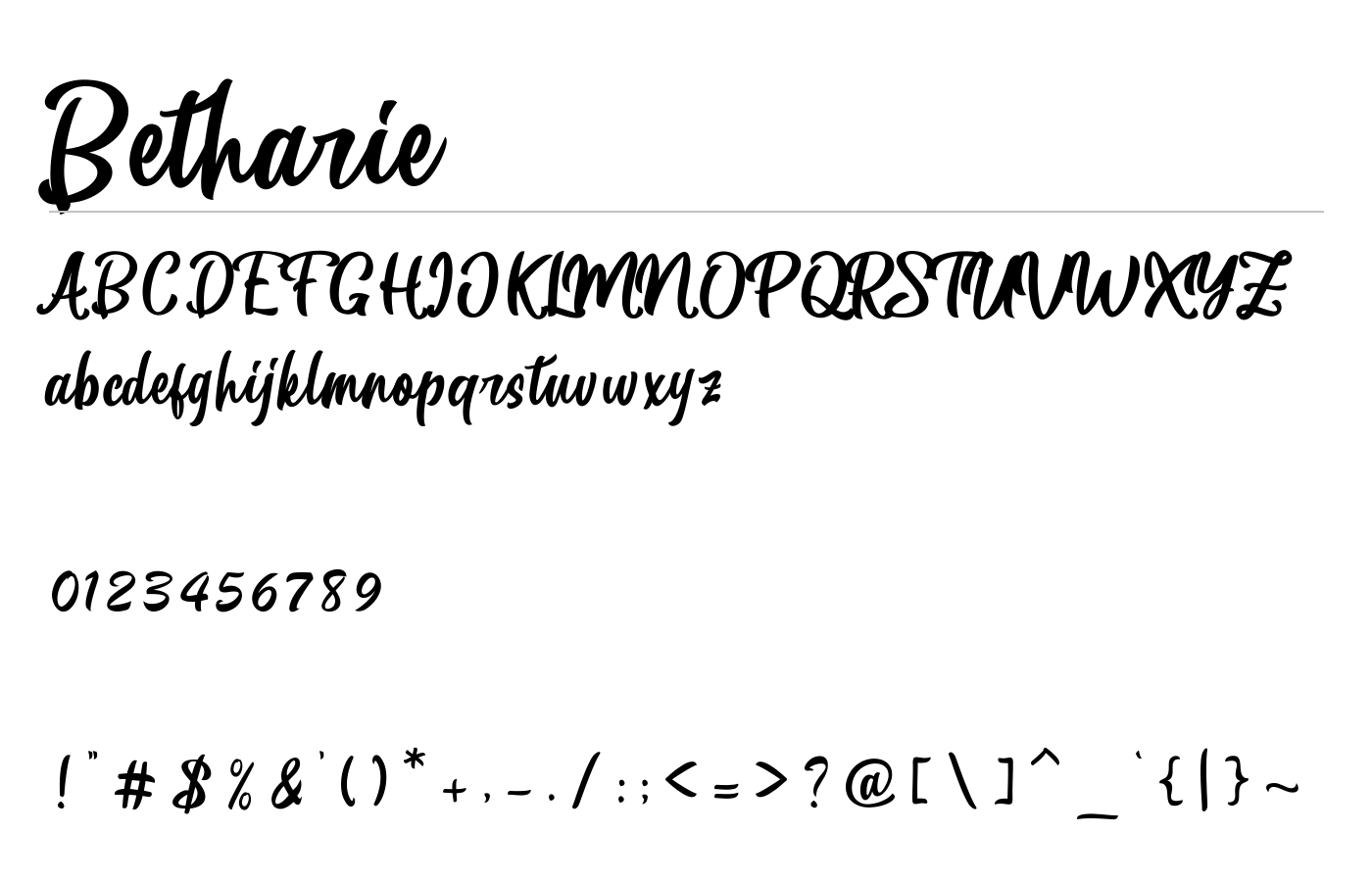
Betharie is a lively script font with a handwritten, casual feel that combines smooth curves with confident strokes. It features a moderate weight and moderate contrast, giving it an elegant yet approachable style, perfect for creative and feminine branding. This font works well in logos, invitations, and social media graphics where a personal and stylish touch is desired.
Betharie Font